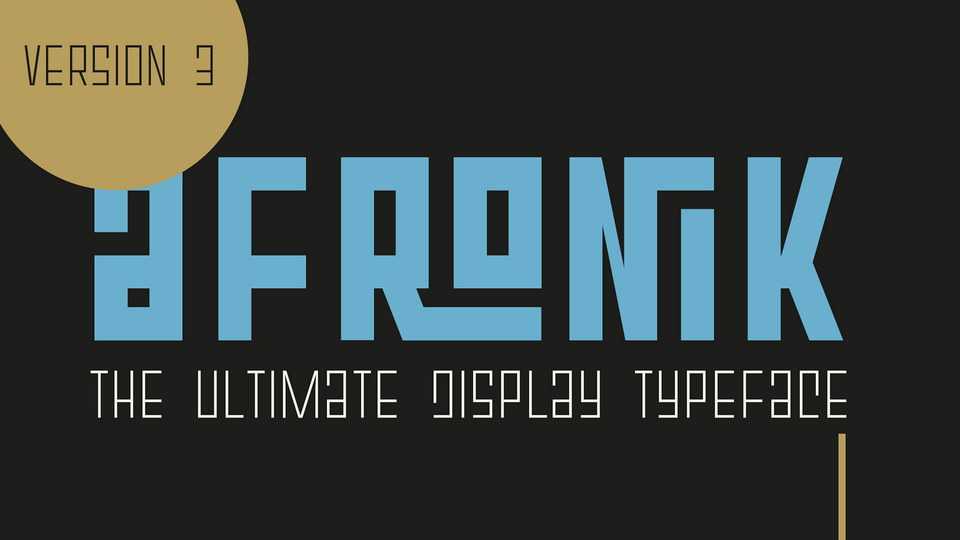
Download Afronik typeface, an African themed display typeface, created strictly using straight lines and edges. Afronik font designed primarily for display purposes thus it will look great on posters, headlines, logos, billboards etc.
Designer: Tapiwanashe Sebastian Garikayi